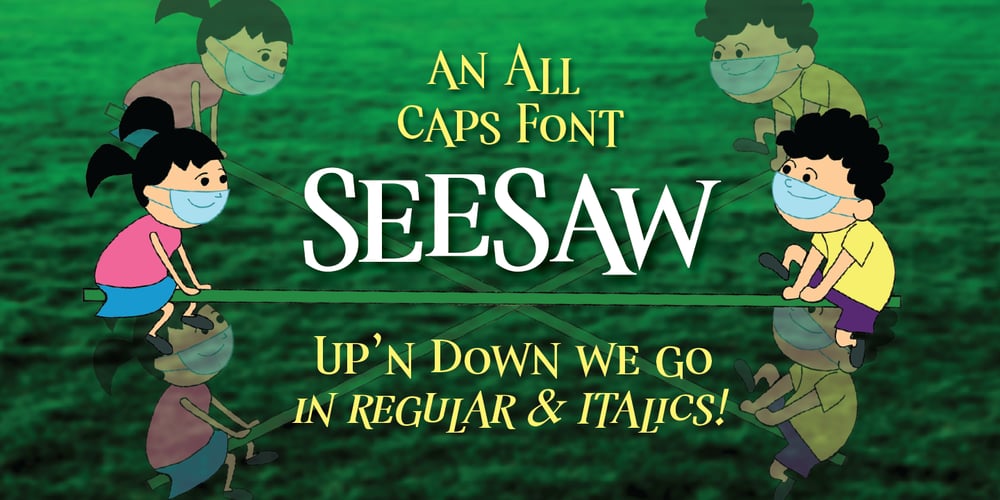
See Saw Font Family was designed by John Nahmias and published by Jonahfonts. See Saw contains 2 styles and family package options. SeeSaw is a novelty bounced display font. Suitable for children’s books, packaging and greeting cards as well as other creative possibilities. Pick and choose letter combinations between caps and lower case letters. Have Fun!